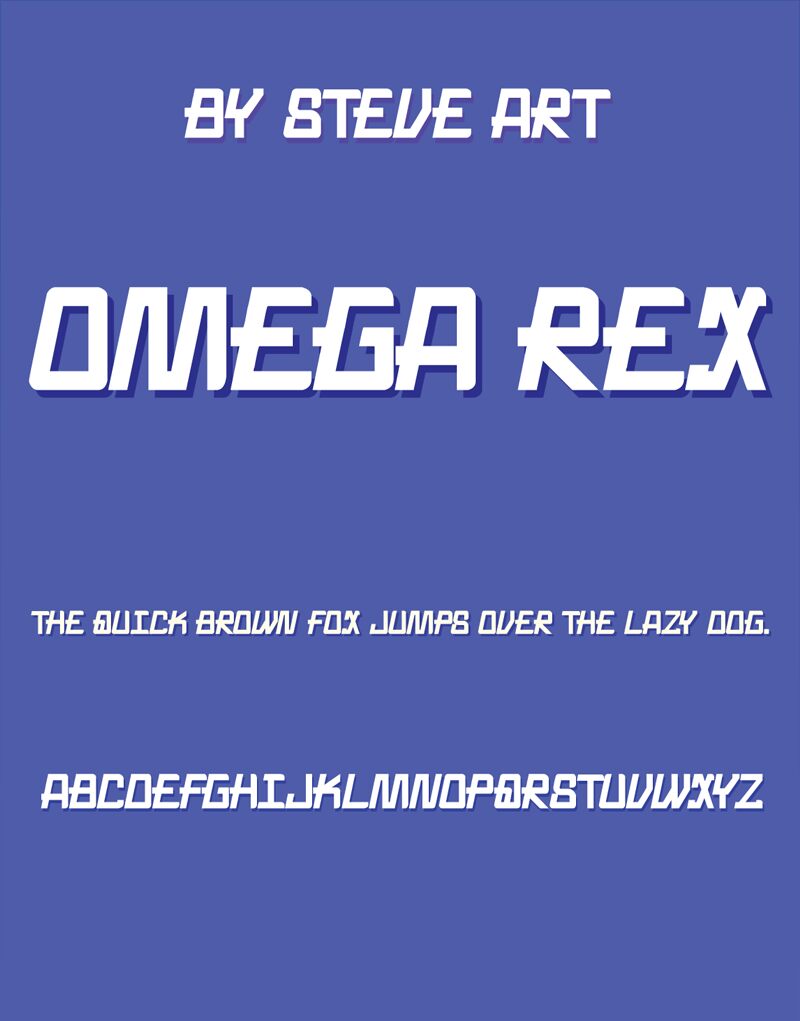
Omega Rex Bold
Omega Rex Bold is a striking techno-inspired display font that commands attention. Its bold, geometric letterforms and sharp, angular edges give it an authoritative, futuristic aesthetic.
The dramatic negative space and dramatic contrast between thick and thin strokes create a powerful, impactful visual presence. This font would excel in design applications seeking to convey a sense of strength, technology, or modernity - from bold headlines and branding to eye-catching poster designs.
Its unique character makes Omega Rex Bold an excellent choice for designers aiming to craft designs with a bold, cutting-edge style.